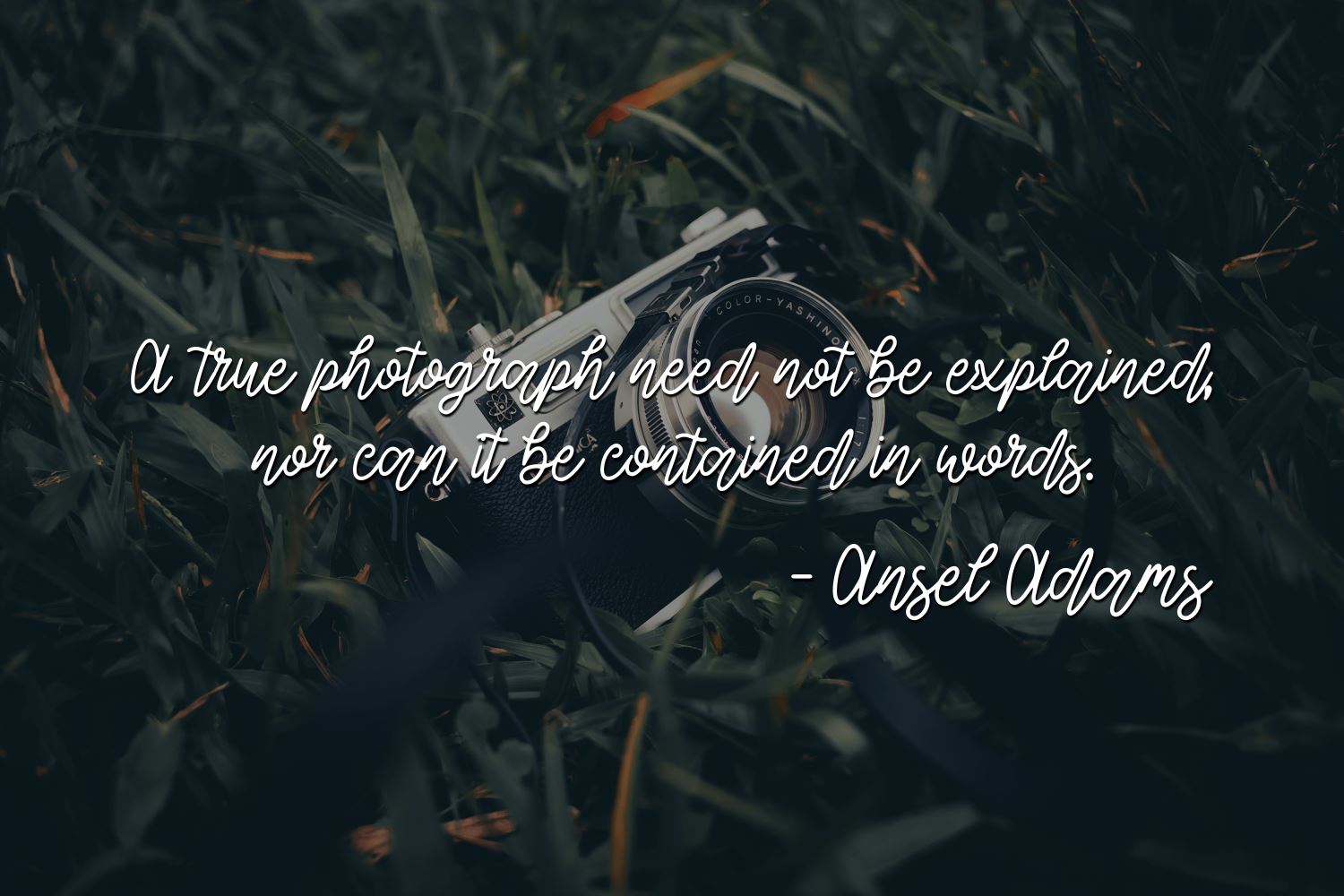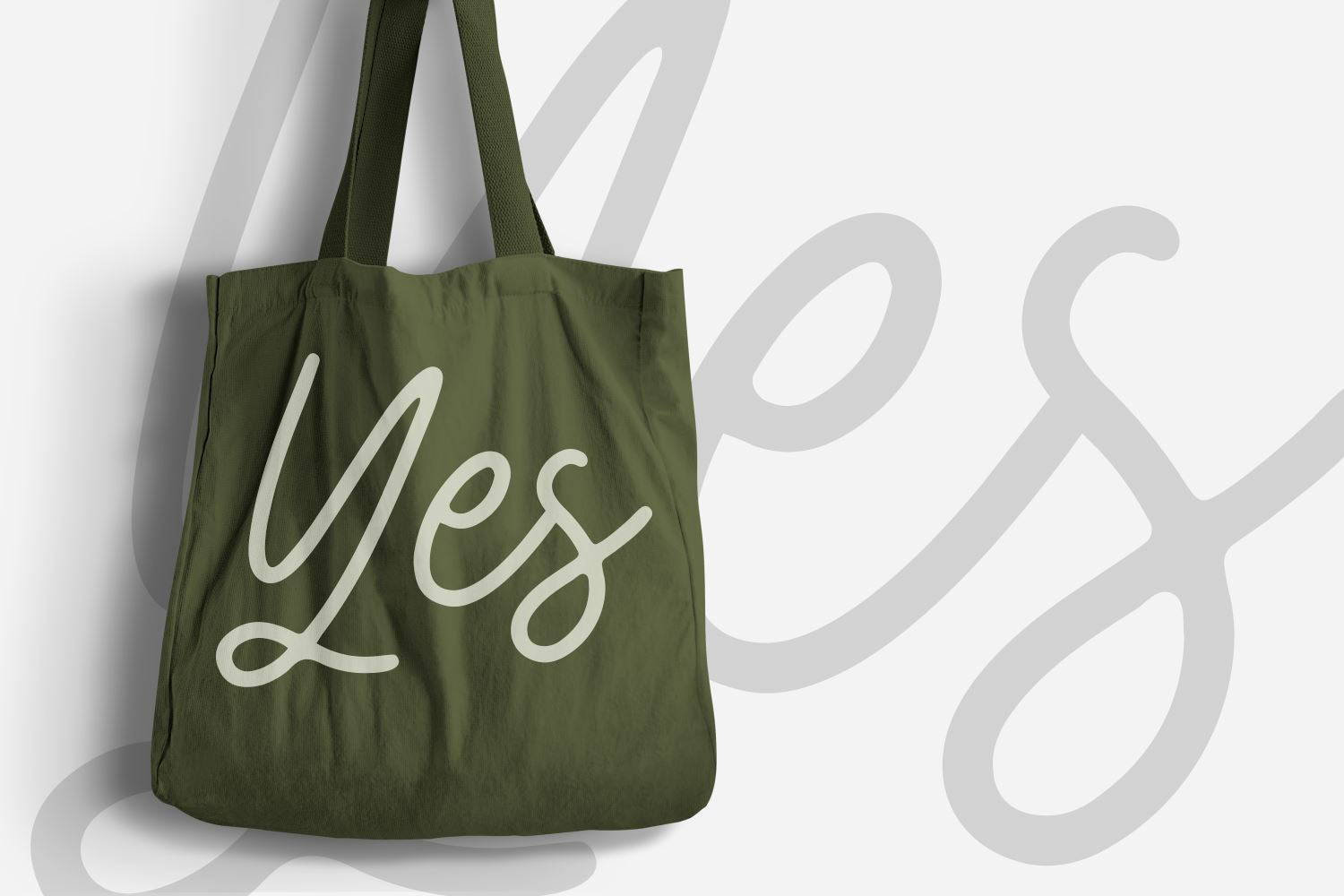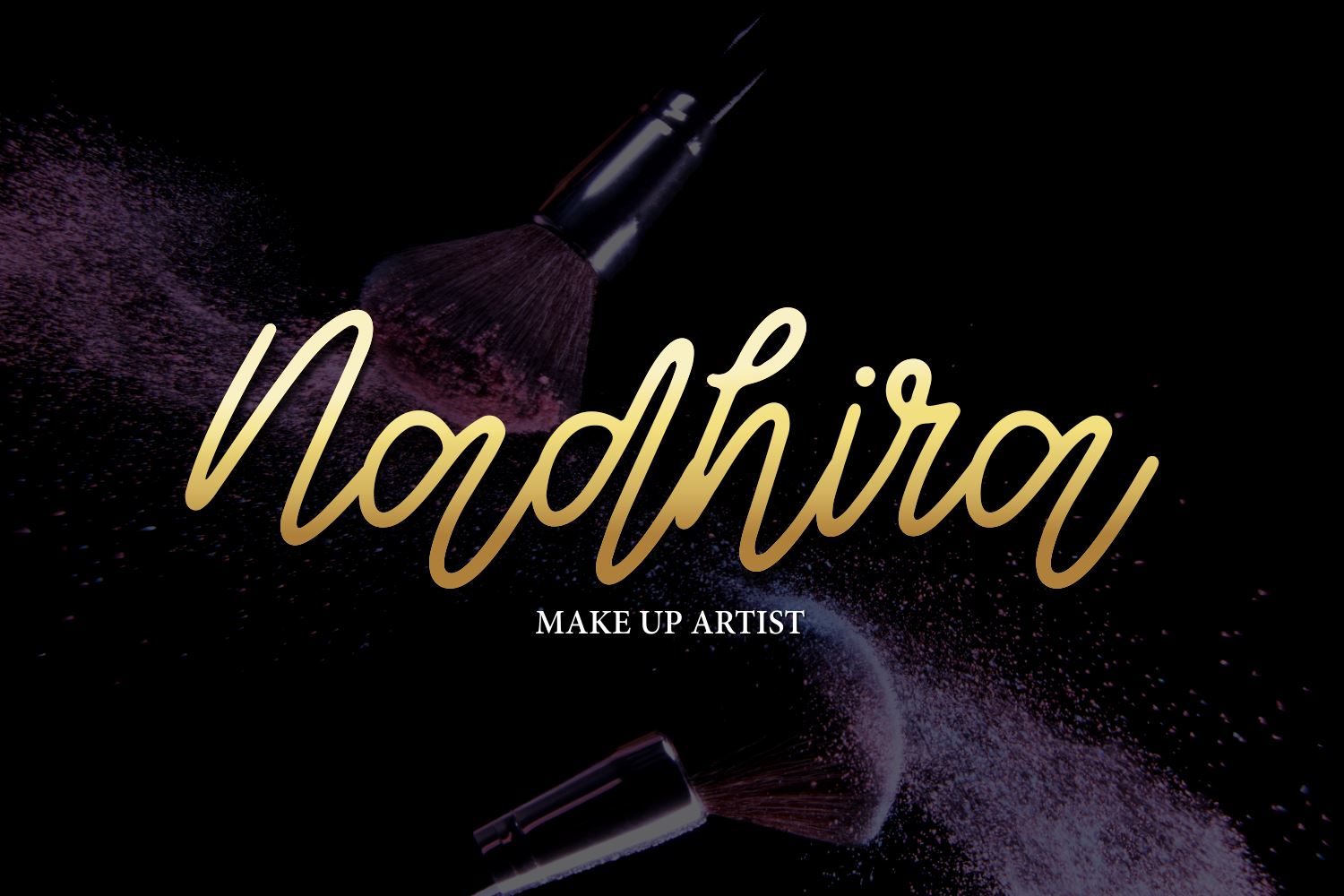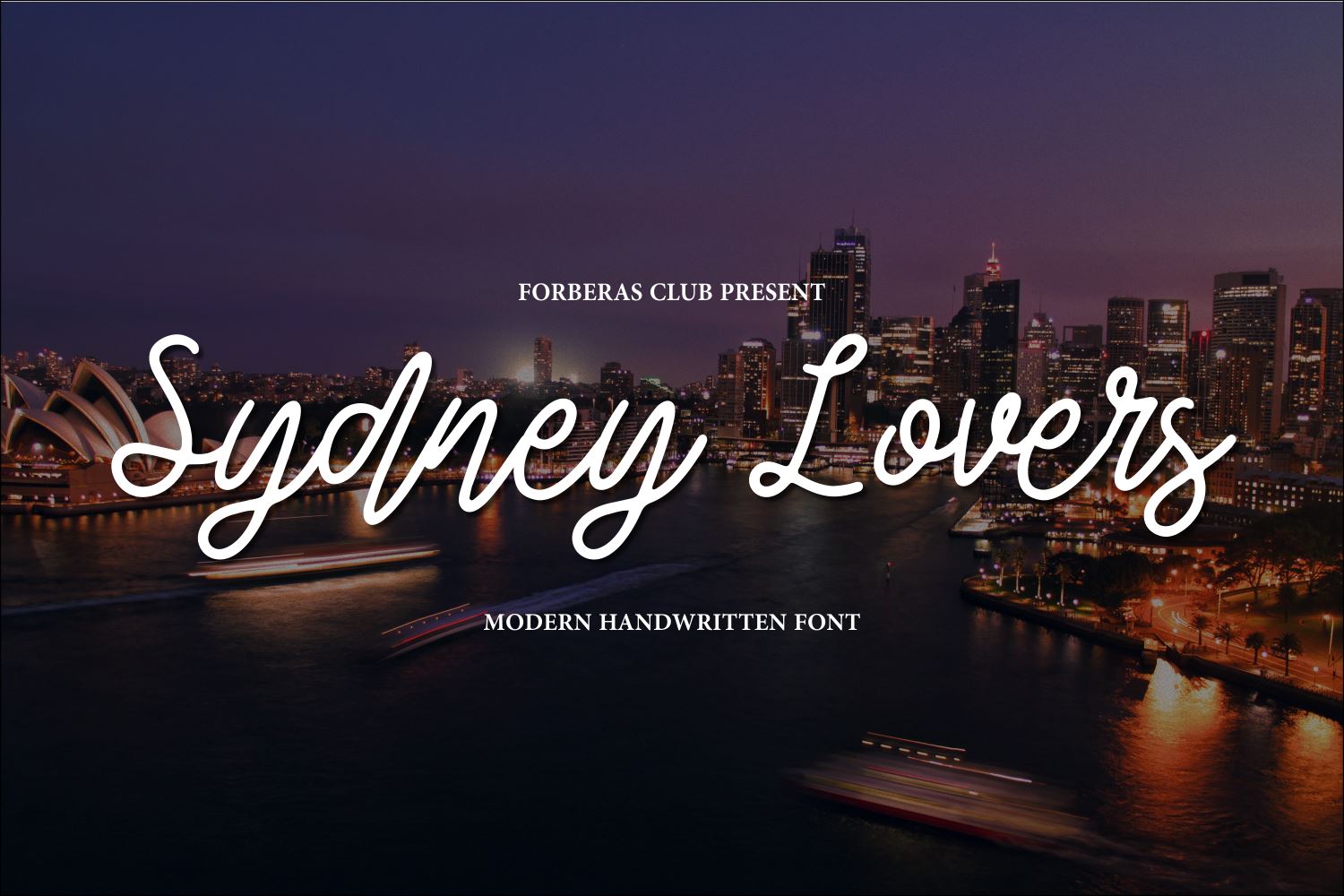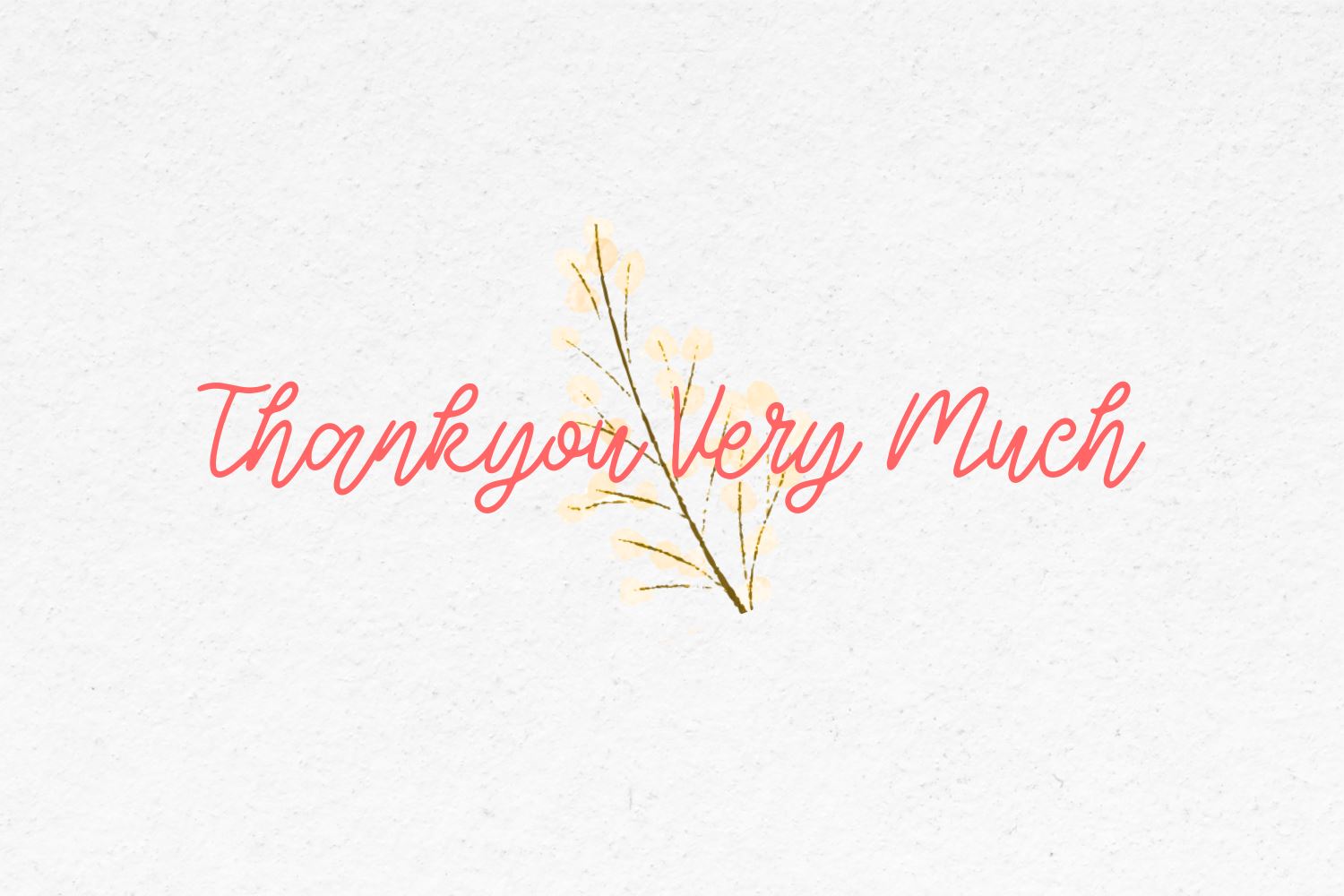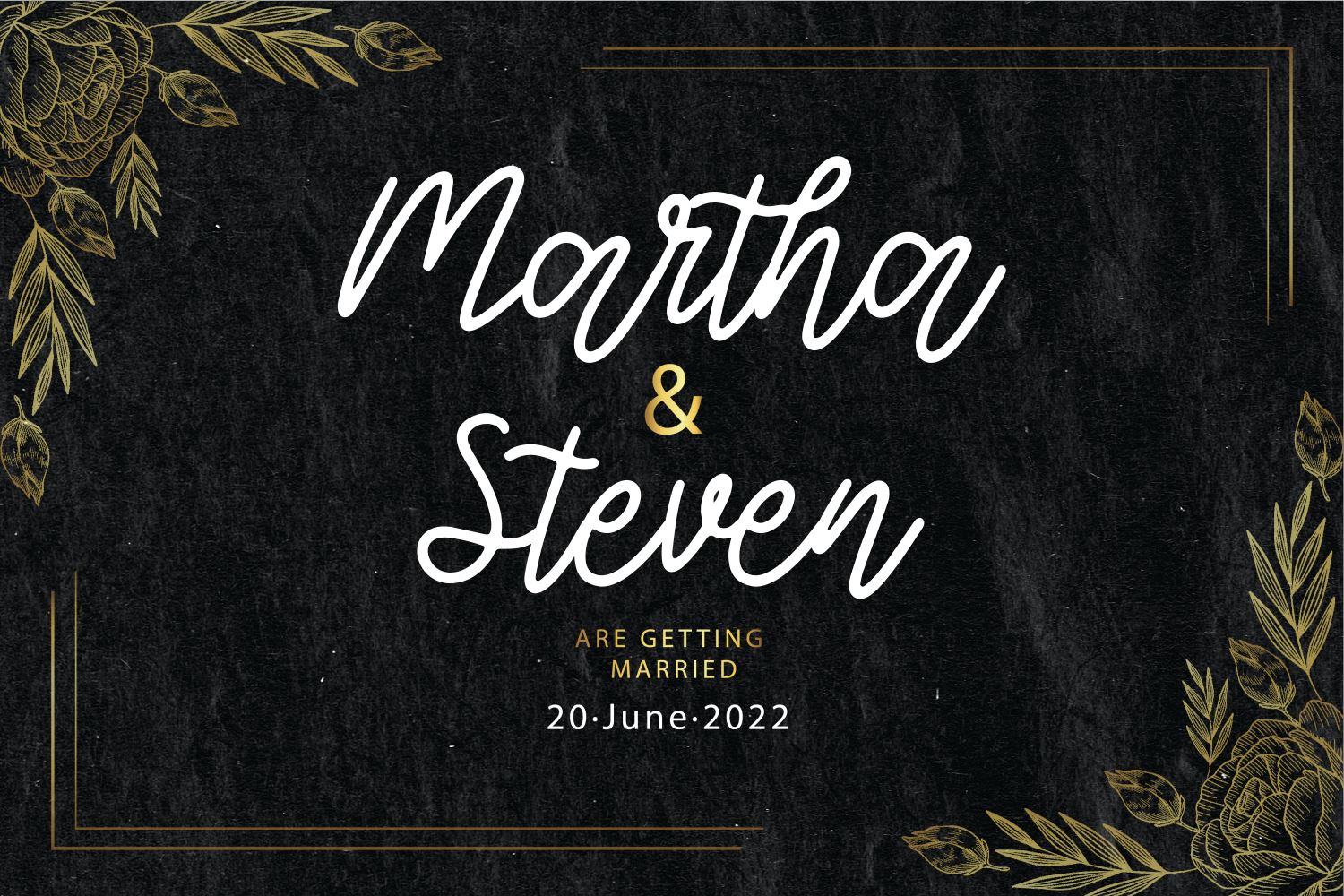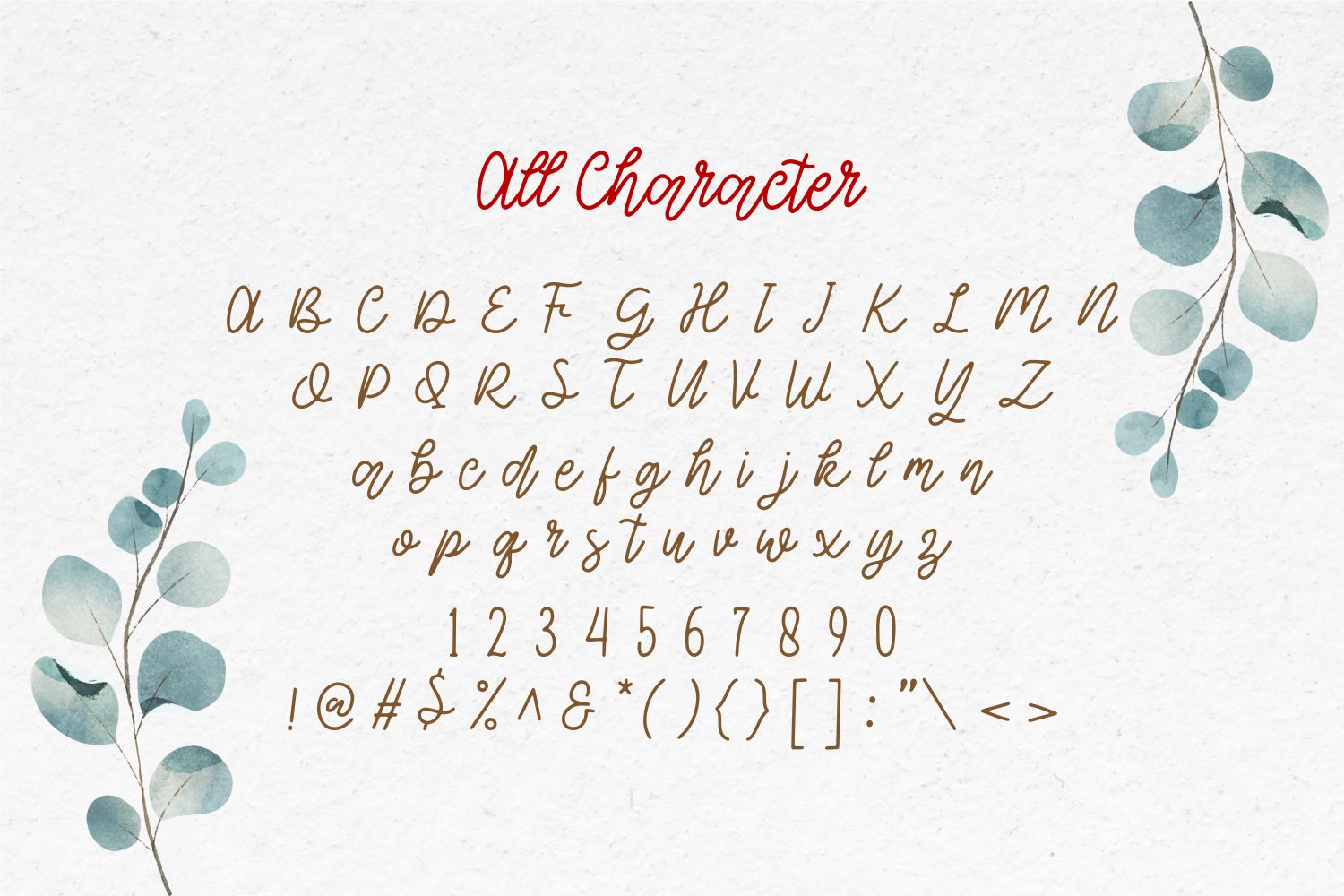
Sydney Lovers
About Sydney Lovers
Introducing Sydney Lovers Font by Forberas Club Sydney Lovers is a Modern Handwritten Font. Sydney Lovers is perfect for book cover, product packaging, branding project, megazine, social media, christmas party fonts, or just used to express words above the background. This font includes TTF and OTF, This font also multilingual support.